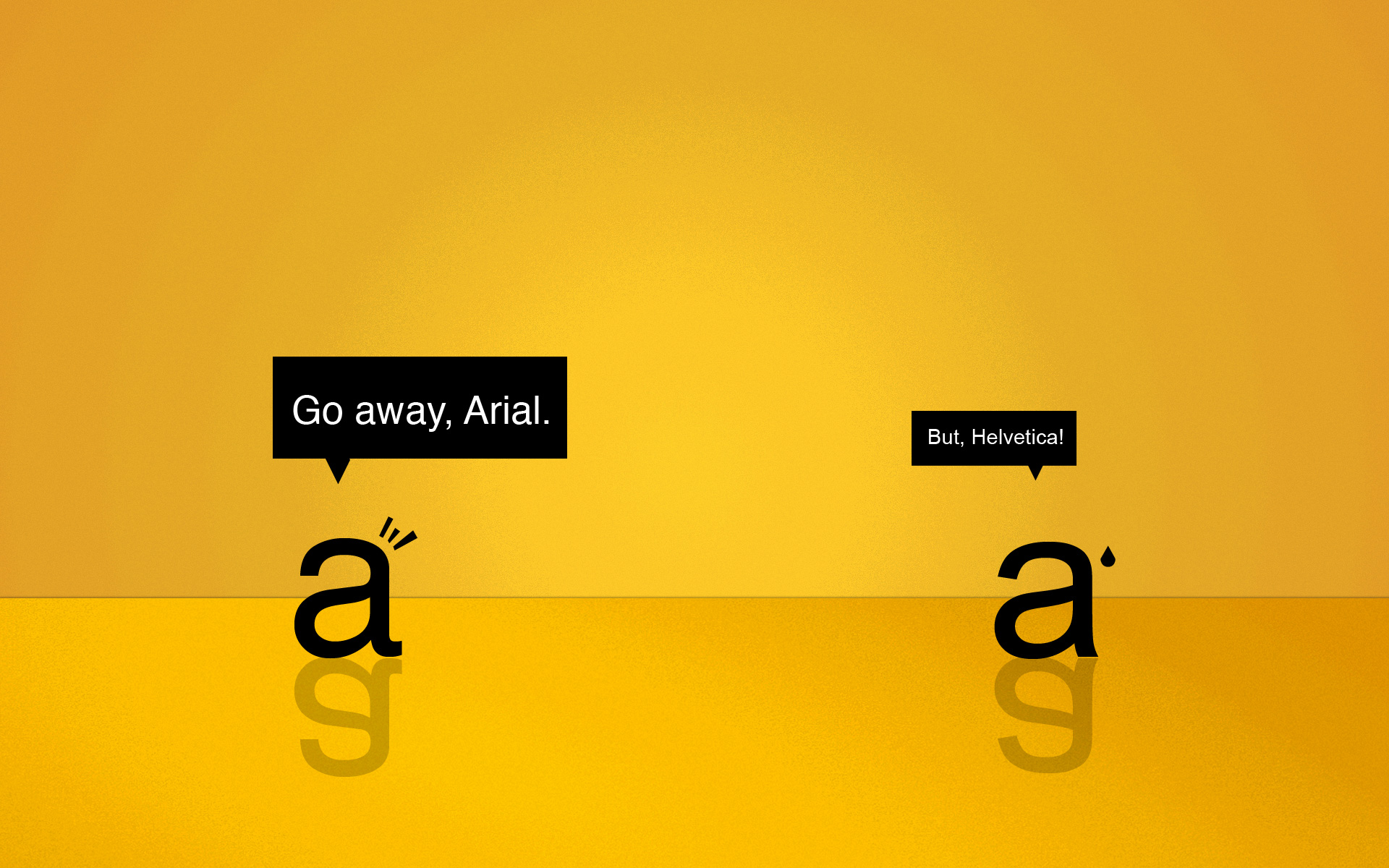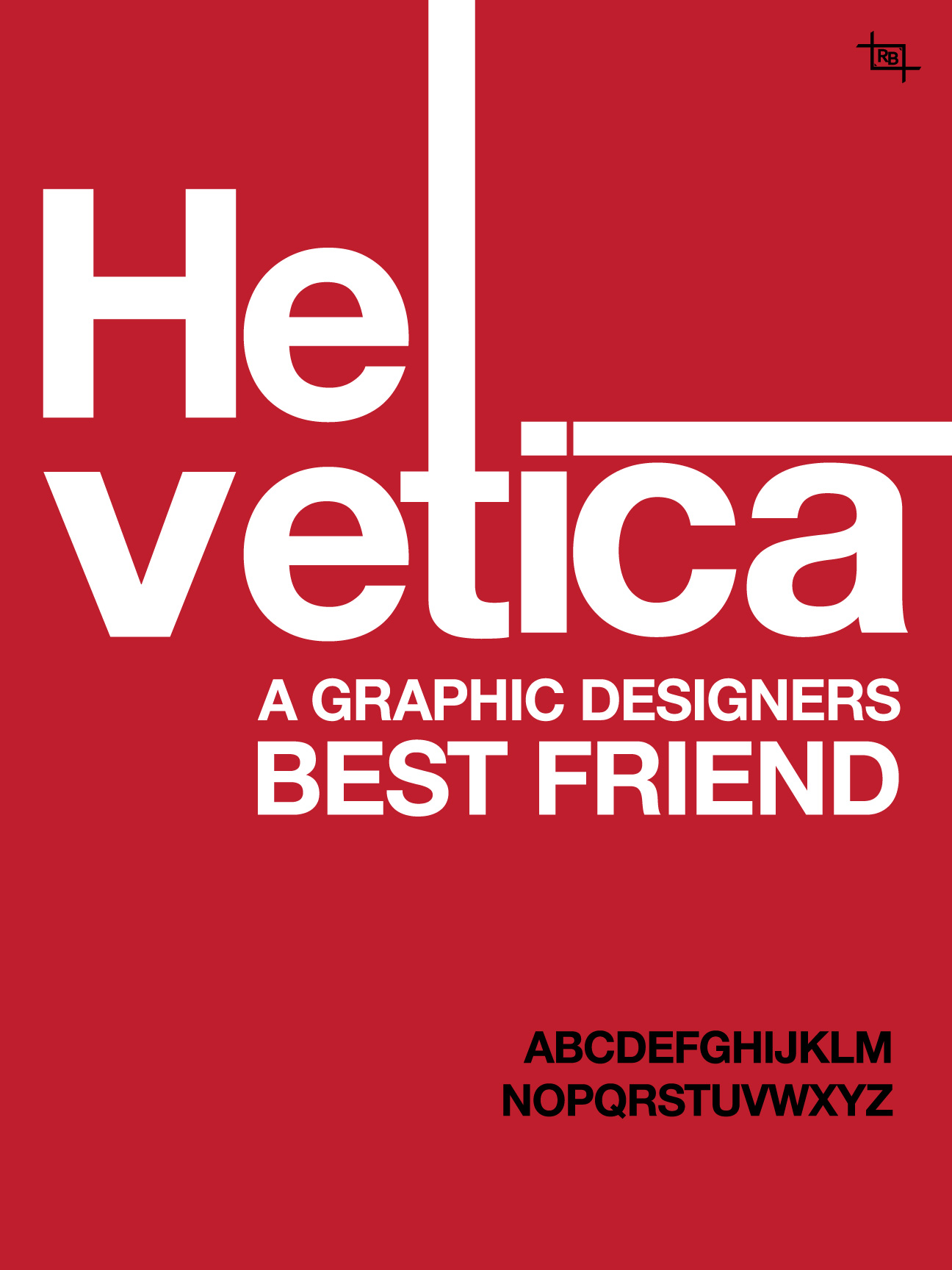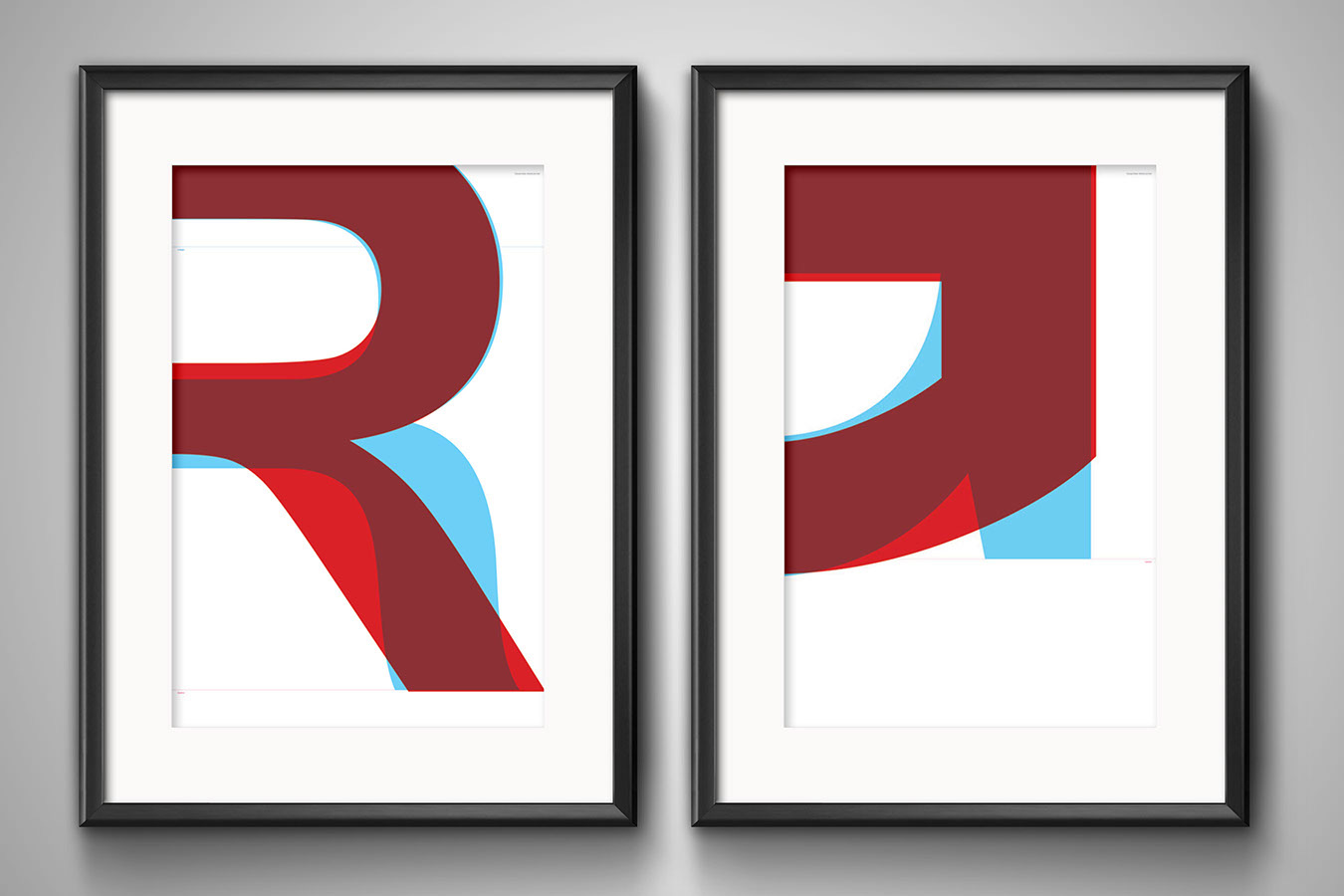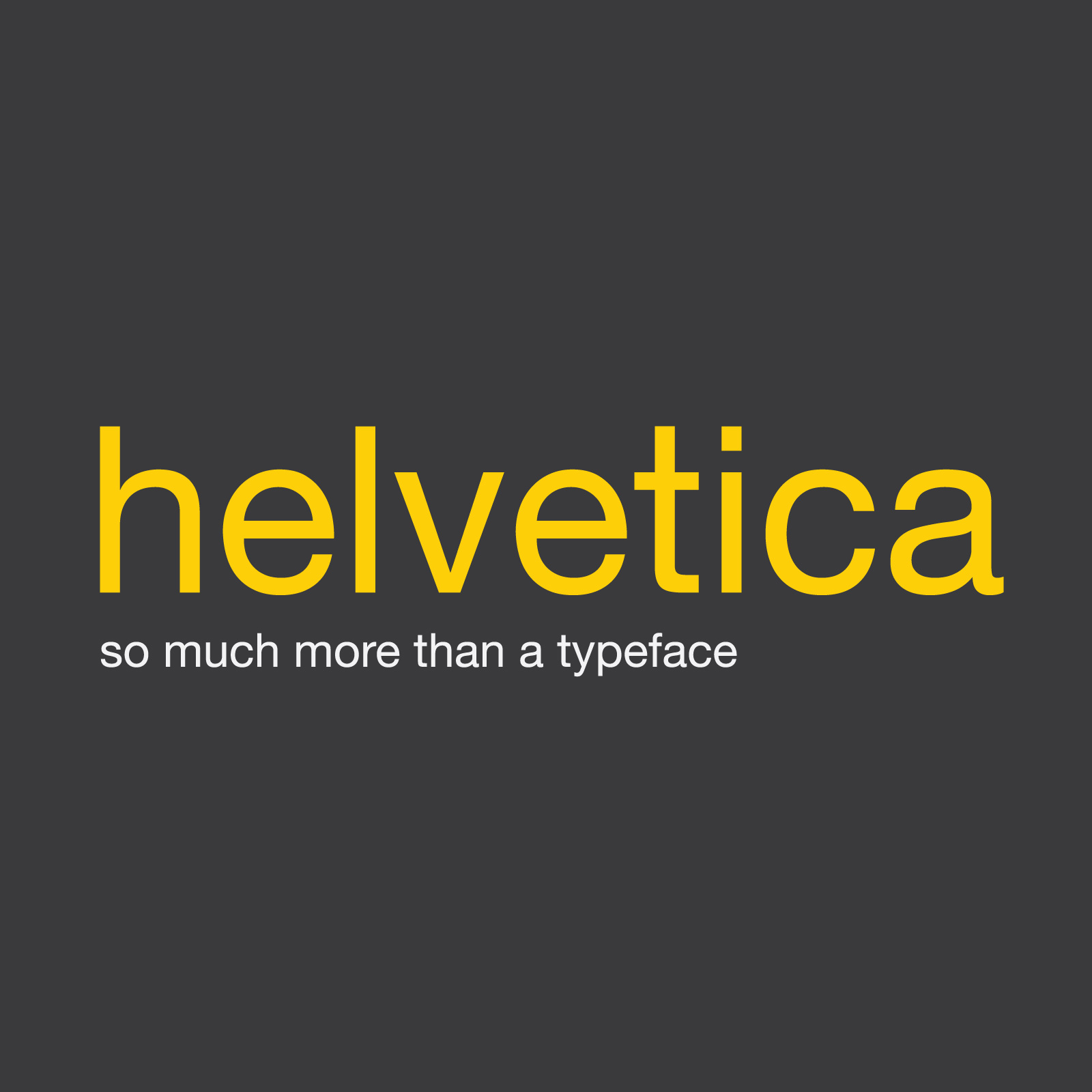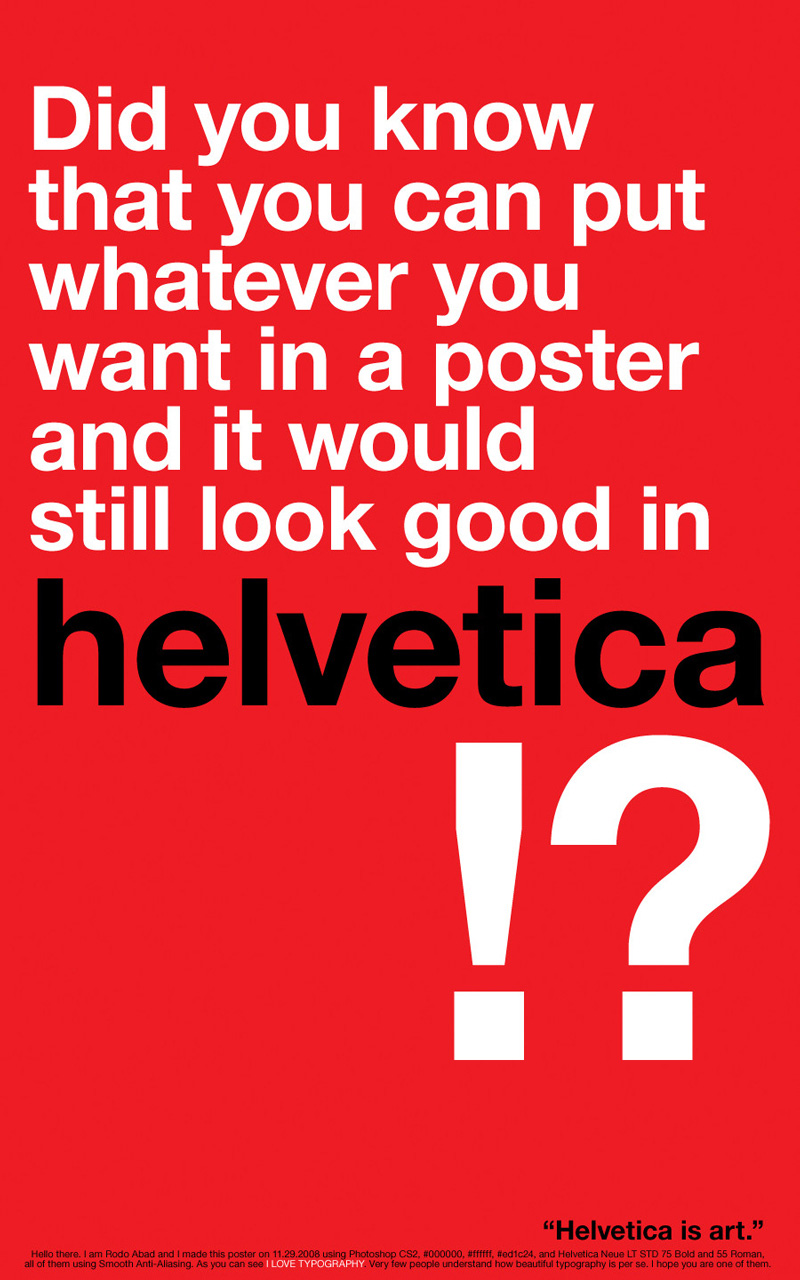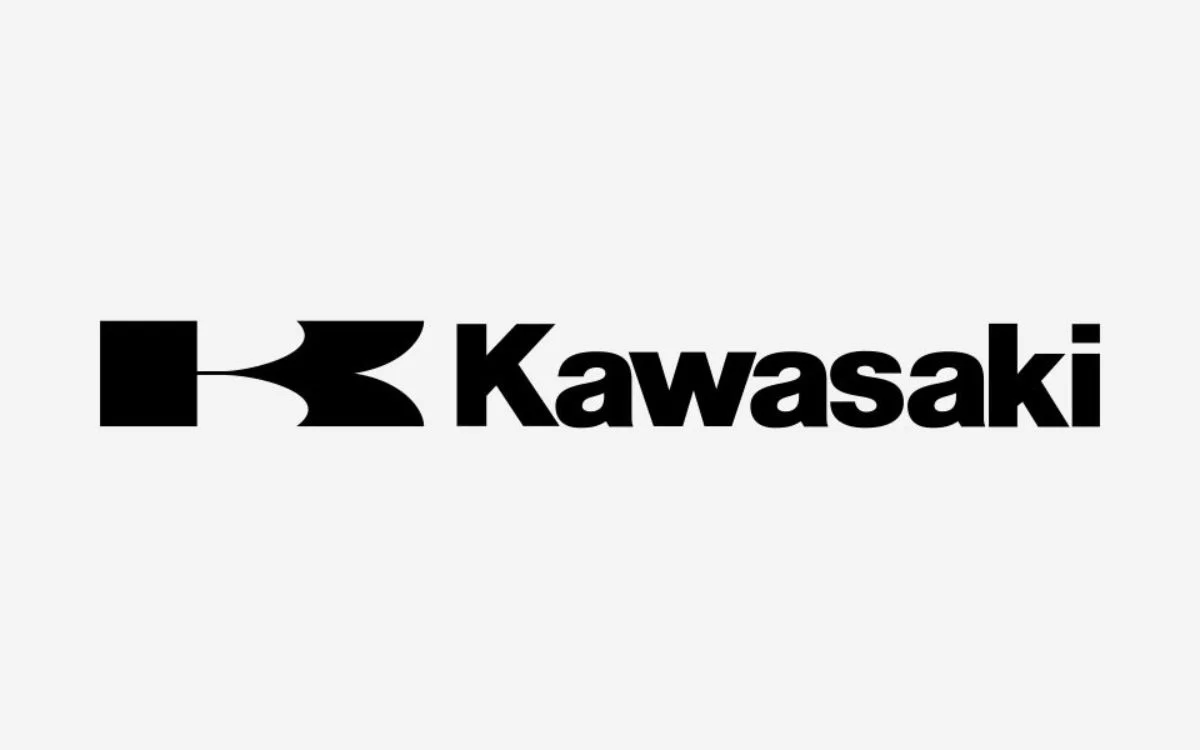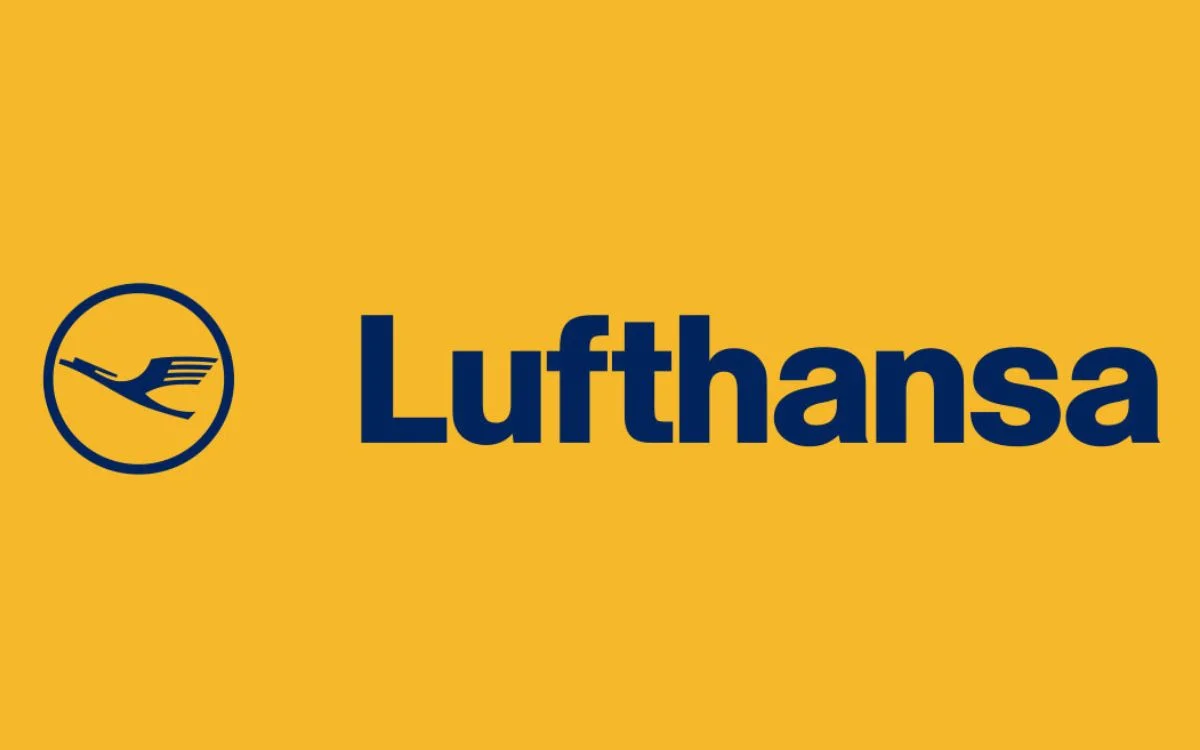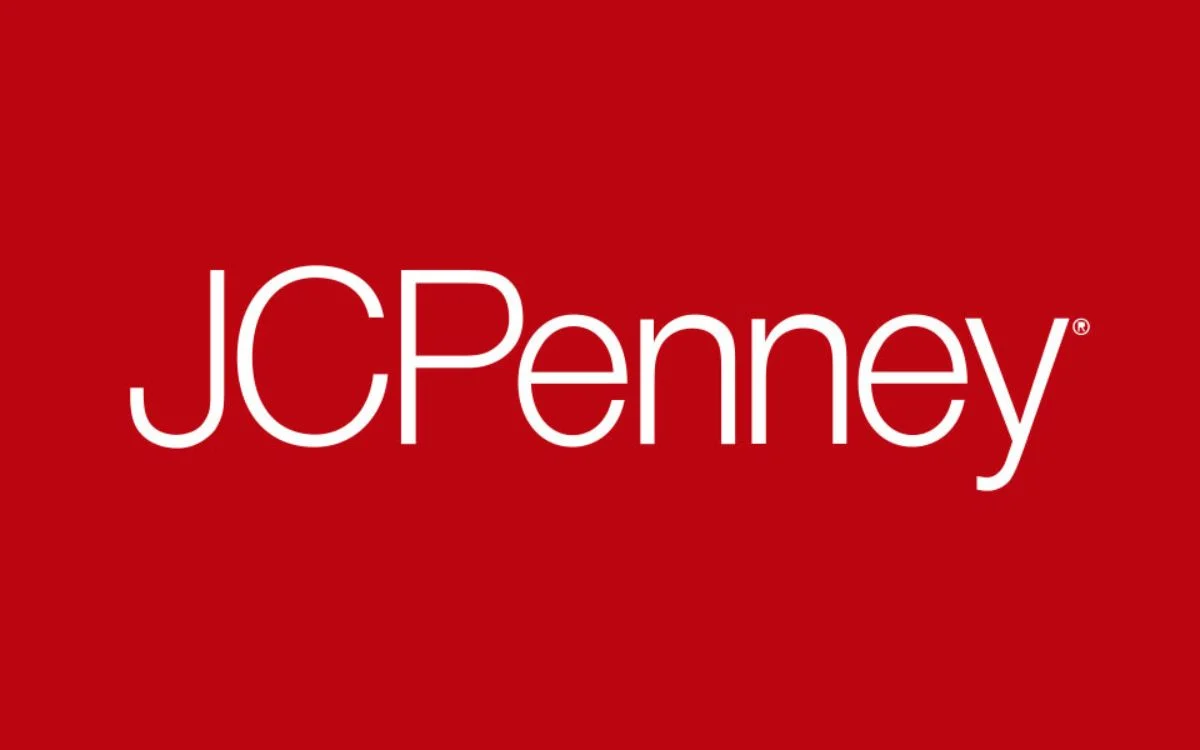
History Of Helvetica Font Family: Everything You Need To Know
Ever wondered why Helvetica is one of the most famous fonts in the world? Today, we’re diving into the story of one of the most iconic typefaces ever created: Helvetica. The history of Helvetica is just as fascinating as its simple, clean, and universally recognized design.
Helvetica’s designers crafted it with sleek lines and a neutral style, making it a versatile and universal typeface that perfects everything from street signs to corporate logos.
In this journey through the history of Helvetica, we’ll explore how this font went from a Swiss creation to a global design staple everywhere today.
Who Designed The Helvetica Font & When?
In 1957, a talented Swiss type designer named Max Miedinger brought the Helvetica font to life. Miedinger and his colleague Eduard Hoffmann set out to create a clean, modern, versatile, and timeless typeface.
They aimed to craft a font that could be used in various settings while looking effortlessly stylish.
Little did they know that Helvetica would go on to become one of the most iconic and widely used fonts in the world, leaving a lasting mark on design and typography!
History Of Helvetica Font
History of Helvetica
As one could conclude by the name, Helvetica has Swiss origins (at first, it was called Neue Haas Grotesk, even if that probably sounds like a 1980s German factory instead of a font).
It has become one of the most popular fonts in the world. Since then, it has been modified into a range of languages and has various variations. The typeface is used in many modern operating systems and other electronic displays.
It appeared in 1956, and Eduard Hoffman and Max Miedinger deliberately created it to cherish the new Swiss Style. This gave it extraordinary importance, almost like a postwar utopian mission.
While modern architecture was slowly stripping away superfluous architecture, Swiss typography followed and snipped off stone-carved and frivolous serifs. The era of modern industry was starting, and communication had to be clean and fast!
Famous Brands Using Helvetica Font In Their Logos
What Are The Types Of Helvetica Fonts?
Helvetica types varied many times, resulting in multiple font types and Helvetica variants available (Korean, Hindi, Cyrillic, Japanese, Vietnamese, Greek, and many others). The alphabet was not the only distinguishing criterion, and the Helvetica type soon evolved to:
• Stempel’s Helvetica Light, designed by Arthur Ritzel and artistic director Erich Schultz-Anker
• Mathew Carter’s Compressed quite similar to Inserat, but still not identical
• Helvetica Textbook, a product of altering characters for informal design
• Helvetica Rounded, designed in 1978, is comprised of rounded stroke terminators. It can be used only in its black and bold version (oblique and condensed included) and has an outline version that was never available online.
• Neue Helvetica, a modern 1983 version with unified character width and height, is considered the most legible due to the enlarged space between numbers and the bigger punctuation marks.
variations of this famous font
Many experts agree that the biggest factor influencing Helvetica’s popularity was Steve Jobs’ decision to use it as the basic font of the Apple operating system, even though the font had already become a design classic years before computers appeared.
As we already mentioned, the creators developed Helvetica after the war, imbuing it with a symbolic value of change for the better—a belief held by many companies. At the same time, it was a way to escape from overdone, kinetic typography and to develop unique advertisement strategies.
Companies understood the font’s power to convey a professional statement and transform their identity because of its modern sensibility and sleek lines that have nothing to do with the past.
Years went by, and it reaffirmed its leading corporate position, being recognized by leading businesses such as American Apparel, which used the font to add playfulness to America’s corporate culture. Besides, there is hardly a texts on picture app where this font is missing
What Is The Difference Between Arial And Helvetica Font?
What is the difference between Arial and Helvetica?
Typefaces, the same as people, vary from one another due to their features. Sometimes, they look so similar that we can’t notice the difference, but a closer inspection would still deny the presence of casual perusal. It would reveal subtle but essential differences.
They can be so tiny that one must take out his magnifying glass to notice them.
Check out: Best Calligraphy Fonts To Spice Up Your Writing
YouTube video
A good example is Arial, a typeface developed in 1982 with incredible similarities to Helvetica. If you haven’t trained your eye to see their differences, you’d probably think you’re looking at the same typeface.
The dissimilarities are small, but very important, especially 3, r, t, a, R and G.
helvetica font family
If we had to generalize, we’d say that Helvetica looks more sophisticated and refined, which would again be difficult to notice because of the identical character width.
They are so similar because Arial was created to be a competitor (following the example of Helvetica and Akzidenz-Grotesk), even if the original idea was not to design an identical twin.
Developers worked with the Monotype Grotesque® typeface to create Arial, which means they intended to ‘soften’ Helvetica with fuller, rounded curves and more open counters.
This is especially visible on the stroke ends of ‘e’, ‘g’, and ‘c’, which are not horizontally cut as in Helvetica but are terminated naturally following the stroke direction.
Check out Modern Fonts To Express Your Ideas
best popular font
We can’t say if there was a battle between the two, but Arian and Helvetica managed to stay on the scene and become the most popular fonts one could use nowadays.
For the sake of truth, Arial is more frequent because it is associated with Windows. At the same time, Helvetica maintains leadership in the print design world and is still releasing new versions and types (Linotype, for instance).
History Of Helvetica Regarding The Technicalities
The technicalities of this amazing font
Observed through the technical prism, this font offers many interesting advantages. It is the most recognized and appreciated sans-serif font, and there are a few good reasons for it:
• Characters always have their strokes horizontally/vertically terminated; diagonal is out of the question.
• It pays attention to the negative space around the letters and uses it to make character lines more impressive.
• The negative space visible on the ‘a’ character was a design mistake which became a popular ‘teardrop’ symbol.
• Stroke weights are monotone.
• Automakers and airlines highly appreciate Helvetica’s readability even in motion.
It will continue holding the throne because it deserves to.
the popularity of this amazing typography
Consider it: even the most innovative and passionate designers prioritise Helvetica as good enough to become timeless. As of now, we cannot replace Helvetica. And the only trend one could expect is for Helvetica to become even more ubiquitous in every sphere.
What is undoubtedly out of the question is that this font looks fantastic and uses such a reputation to dominate the commercial sphere and ‘speak’ of business. Arial is a fair substitute, but not that much in terms of quality. But because people don’t distinguish the one from the other.
Besides, it is being promoted on Windows, too, and it is more than likely to replace the far more neutral Arial typeface.
Also read: Typography Visual Hierarchy And What It Means
Which is a better choice?
Overall, Helvetica is a good choice for those looking to write a formal and elegant piece but also for those who prefer to balance conservative and edgy, modern and traditional, or elegant and casual. This amazing font can do it all!
Once again, generalizing once again, this font tends to look more modern than classic. But that’s only because it belongs to the sans serif family. How it will work for you will depend on the elements you want to include. You can use it for a more traditional scenario whenever you decide.
Also read: Typography Terms That You Should Know
poster sample
Meanwhile, Helvetica helps you stay on the safe side. You can use it as your fall-back option when blowing hot and cold on particular typefaces and their impact on your design.
No wonder this font is so popular among beginners and design students. They all use it for a safe ‘kick-off’! However, this font lacks the daring to complement unique projects sufficiently. One can’t use it to stand out from the crowd.
Check out Beautiful Web Typography – Best Practices And Fonts To Use
History Of Helvetica Font Classification
Helvetica is a sans-serif font, meaning its letters lack rounded tips or tails. Serif fonts like Times New Roman have these tips and tails. Books and other printed materials often use them. Sans-serif typefaces like this remain the most popular choice for websites and other digital material because their clean look is easier to read on screens.
The Linotype Corporation originally owned the rights to the Helvetica typeface. And then licensed its usage to companies like Xerox, Adobe, and Apple at the start of the personal computer revolution. The font became one of the primary typefaces in Apple’s Mac OS operating system. Until 2015, iPhones and iPads used it as the default system font.
Helvetica lost some popularity in the 1990s as desktop publishing software became more complex and offered substitute typefaces with more variation.
Check out Techniques To Improve Your Design Typography
Commercial Usage Of This Font
Let’s explore the commercial usage of this font in the history of Helvetica. Monotype, the company that acquired Linotype and its assets, now owns this font. To use the font in commercialized projects, you must subscribe to a package through Monotype’s licensing system. Subscription packages are available for monthly or yearly pricing.
Large corporations like General Motors, Jeep, Target, and Verizon use this font for printed branding and in computer operating systems and word processing software. Transportation signage, including for the MTA in New York and the Washington DC metro system, also uses it.
Discover Pixelo’s New Free Fonts and Designs For Commercial Use
What Is Helvetica Neue?
Helvetica Neue is like the cool, updated version of the classic Helvetica font, giving it a fresh twist while keeping its beloved charm. Released in 1983 by the Swiss design team that brought us the original Helvetica, Helvetica Neue refined the font’s classic look with a more modern and versatile touch. It offers a range of weights and styles, making it a go-to choice for designers who need a stylish and adaptable font. Whether on a trendy website, a sleek app, or a bold billboard, Helvetica Neue keeps things looking clean and contemporary, proving that sometimes, even the classics can get a fantastic upgrade.
What Font Is Similar To Helvetica Family?
The history of Helvetica is rich. The official Helvetica font family includes a range of variations that offer light, bold, and compressed options. For designers looking for other Helvetica alternatives, the most common are Arial and MS Sans Serif. Both have gained popularity through the Microsoft Windows operating system and Office applications.
Several license-free substitutes have also emerged in recent years. These include Nimbus Sans L, FreeSans, and Liberation Sans, which is one of the default system fonts for RedHat Linux. Google widely uses the font Roboto on the Android smartphone platform, which was commissioned explicitly. We hope you enjoyed this exploration of the history of Helvetica.